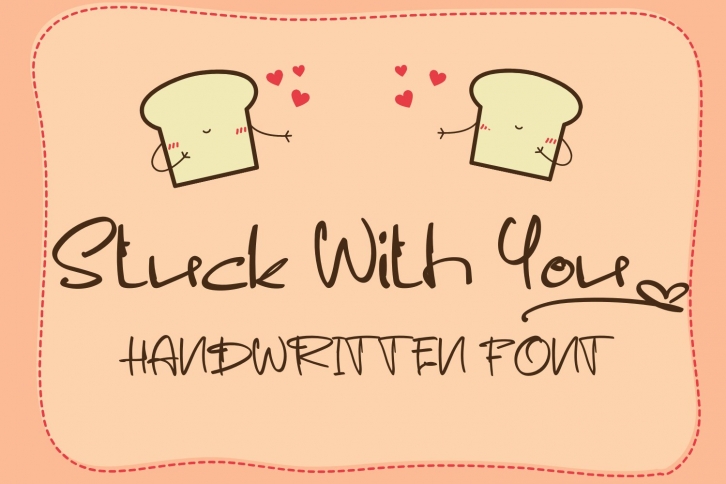
Stuck With You - Casual Handwritten Font Download
Stuck With You is a trendy and unique font with an authentic style. It was designed by Lettering Studio and it's a great choice for creative people who need such a font. It was released on January 9, 2021 and the file size is 13.92 MB. Stuck With You will add an organic vibe to any design idea!